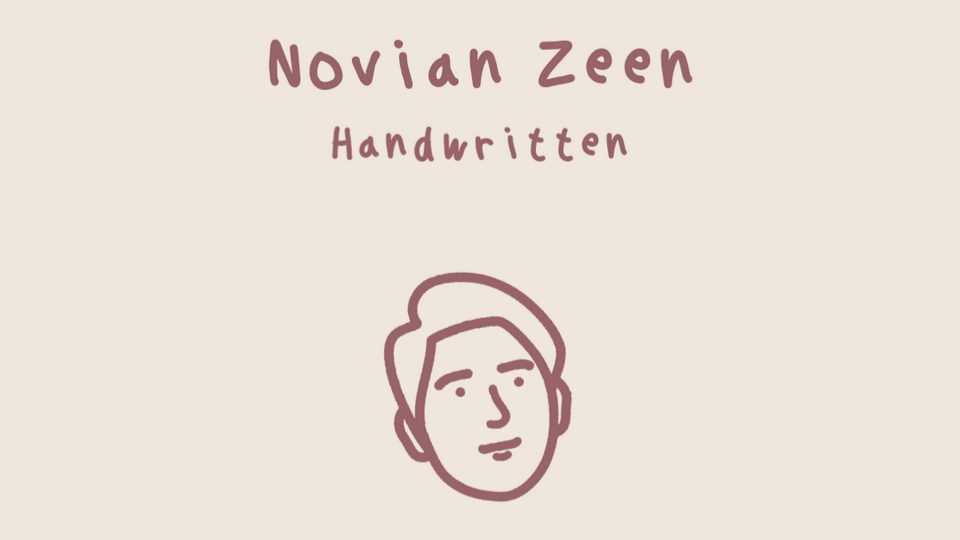
Download Novian Zeen font, a simple and natural handwritten typeface. Novian Zeen is suitable for notes, quotes, cards, crafts and other creative projects.